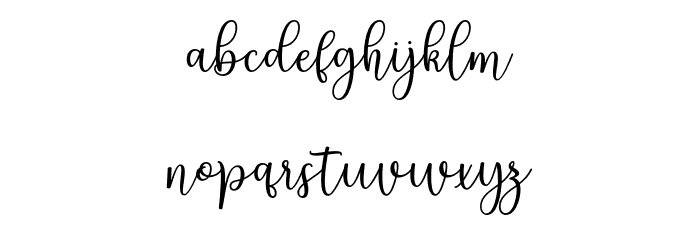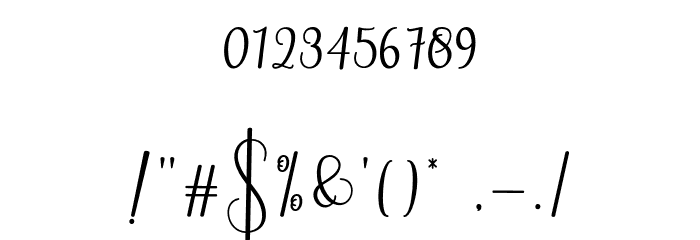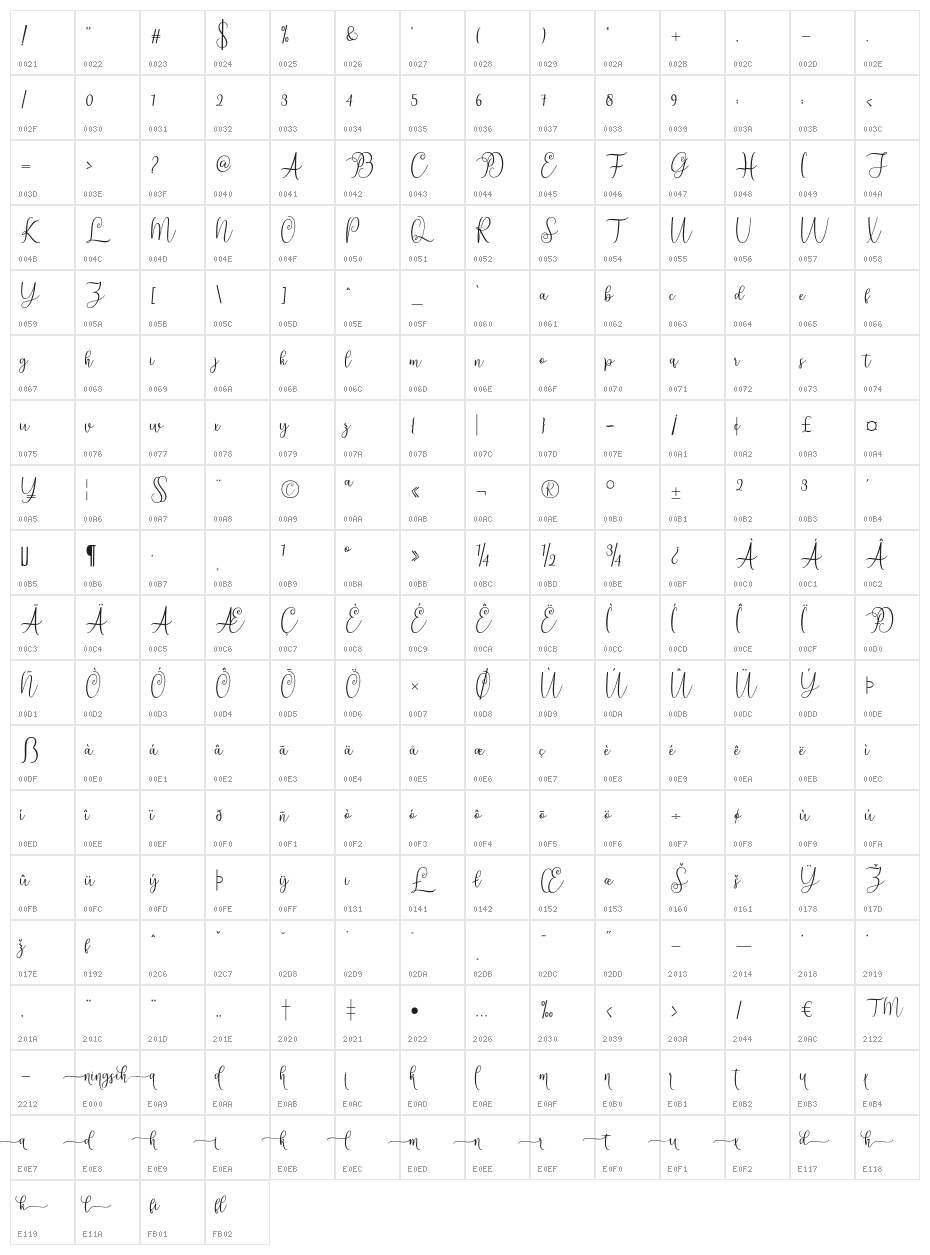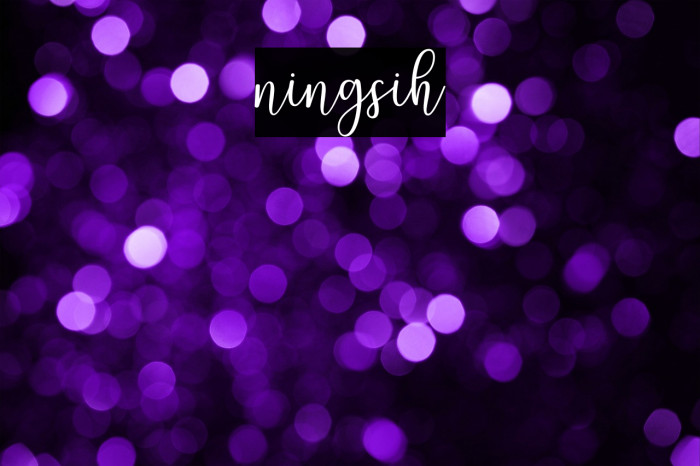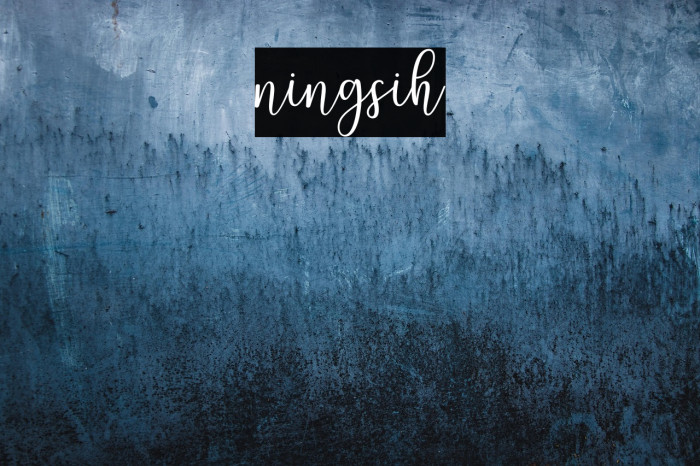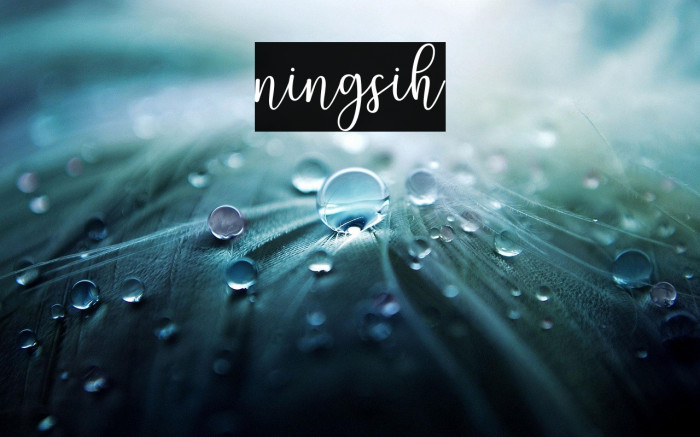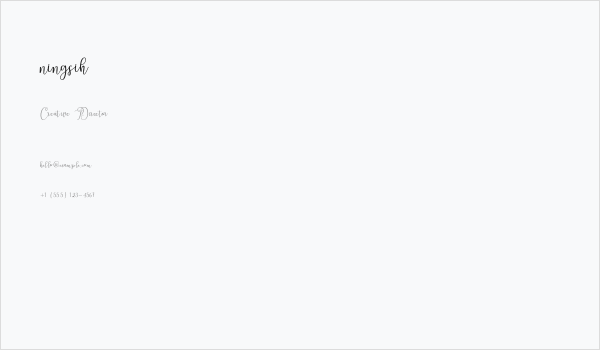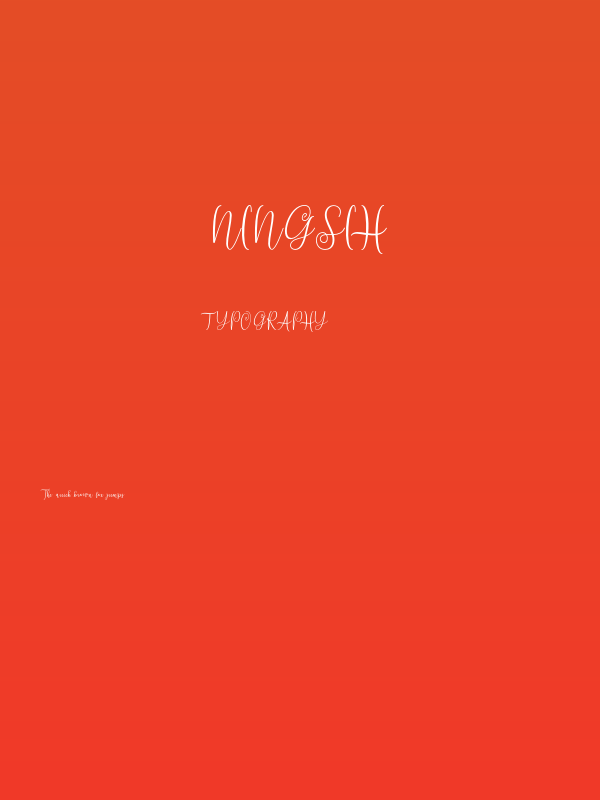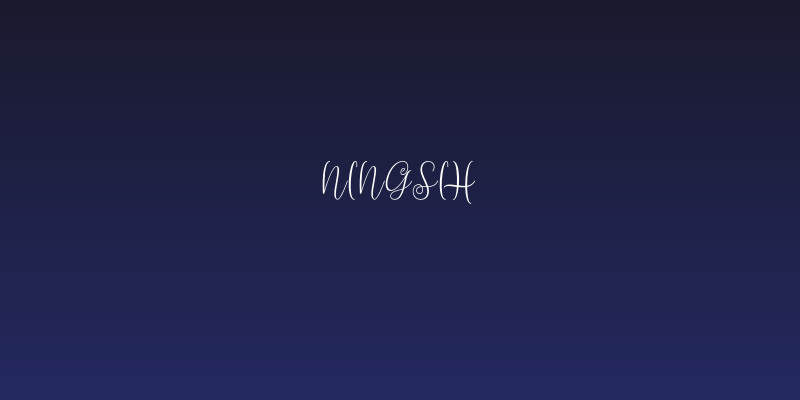
ningsih Font
This font features an elegant and flowing script style, characterized by its smooth, cursive lines and graceful curves. The uppercase letters are ornate with loops and swirls, giving a sophisticated and artistic appearance. The lowercase letters maintain a consistent flow, enhancing readability while retaining a decorative flair. Numbers and special characters are designed to complement the overall aesthetic, with a harmonious balance between form and function. This font exudes a sense of elegance and creativity, making it suitable for projects that require a touch of sophistication.
An elegant, flowing script font with ornate uppercase and smooth lowercase letters.
- Proposed Projects: Ideal for wedding invitations, greeting cards, branding, and elegant logo designs.
- Overall Style: Elegant, Decorative
- Use Case: Logos, Invitations, Decorative text